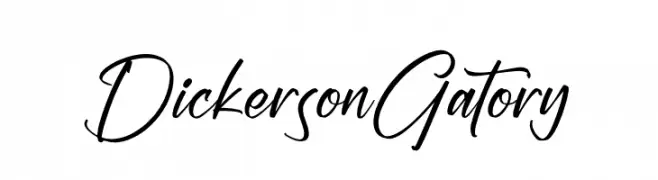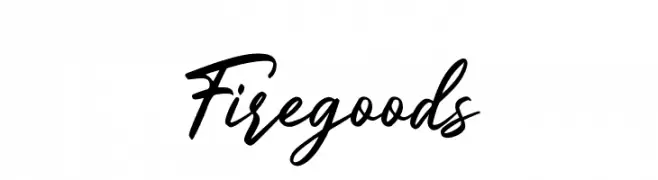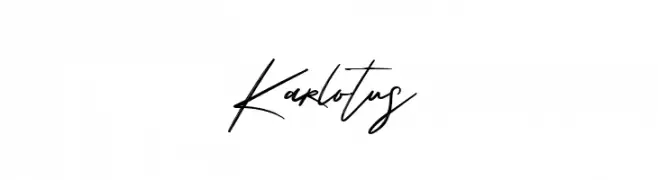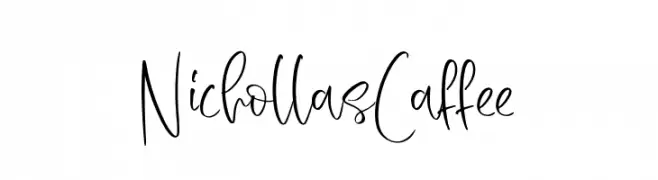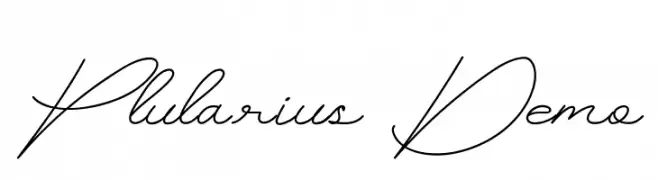
A bold, brush-style font with a dynamic, hand-drawn aesthetic.
A dynamic and fluid cursive script with elegant, elongated strokes.
A bold, cursive script font with dynamic and fluid strokes.
A playful, whimsical handwritten font with flowing, irregular strokes.
A bold, graffiti-style font with a dripping paint effect, perfect for urban and artistic designs.
A dynamic and elegant handwritten font with fluid, cursive strokes.
A graceful and fluid script font with a natural handwritten style.